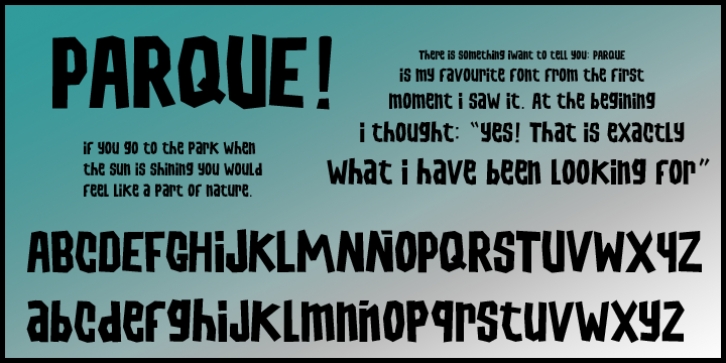
What was the inspiration for designing the font? Parks and nature.
What are its main characteristics and features? Wooden, Children, kids.
Usage recommendations: in advertisement for parks, for animation films, Cartoons, as you like.